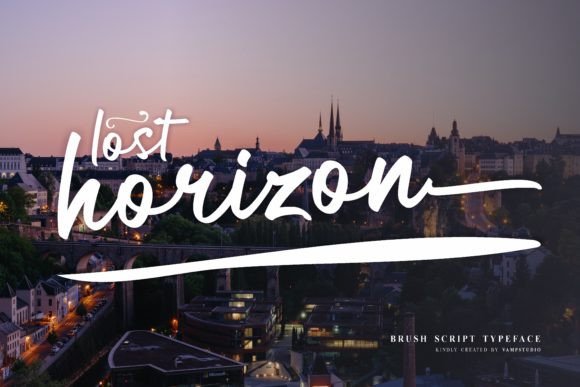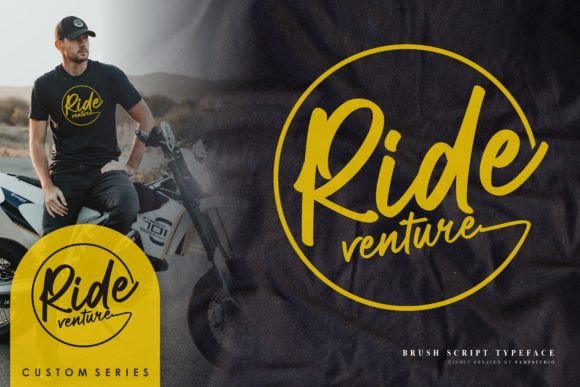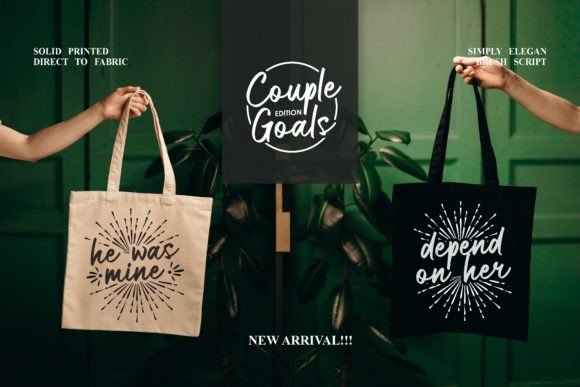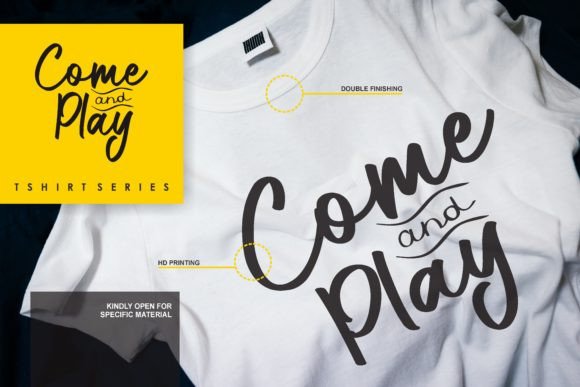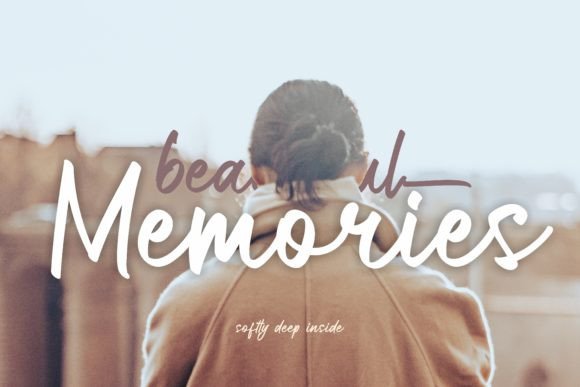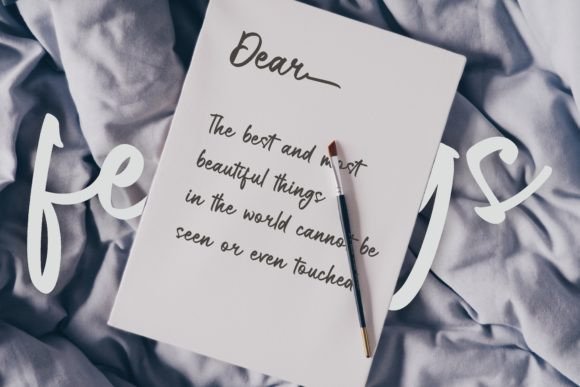
Introduction to Luxembergh Font Font
Fonts play a crucial role in design, and the Luxembergh Font font is a typeface that brings both character and versatility to any project. Whether you’re working on a branding project, a website, or a print design, the Luxembergh Font font offers a unique style that can elevate your work.
Luxembergh Brush Signature is perfect for branding projects, logo, wedding designs, social media posts, advertisements, product packaging, product designs, label, photography, watermark, invitation, stationery and any projects that need a handwriting touch.
Key Features of Luxembergh Font Font
Why Choose Luxembergh Font Font?
The Luxembergh Font font is more than just a typeface – it’s a design tool that helps you communicate your message with style and clarity. Its unique character set and versatile design make it suitable for a wide range of applications, from elegant invitations to bold headlines.
With its carefully crafted letterforms and balanced proportions, the Luxembergh Font font ensures readability and visual appeal across all mediums.
What makes Luxembergh Font font special?
The Luxembergh Font font stands out with its unique design, exceptional readability, and versatility across various design applications.